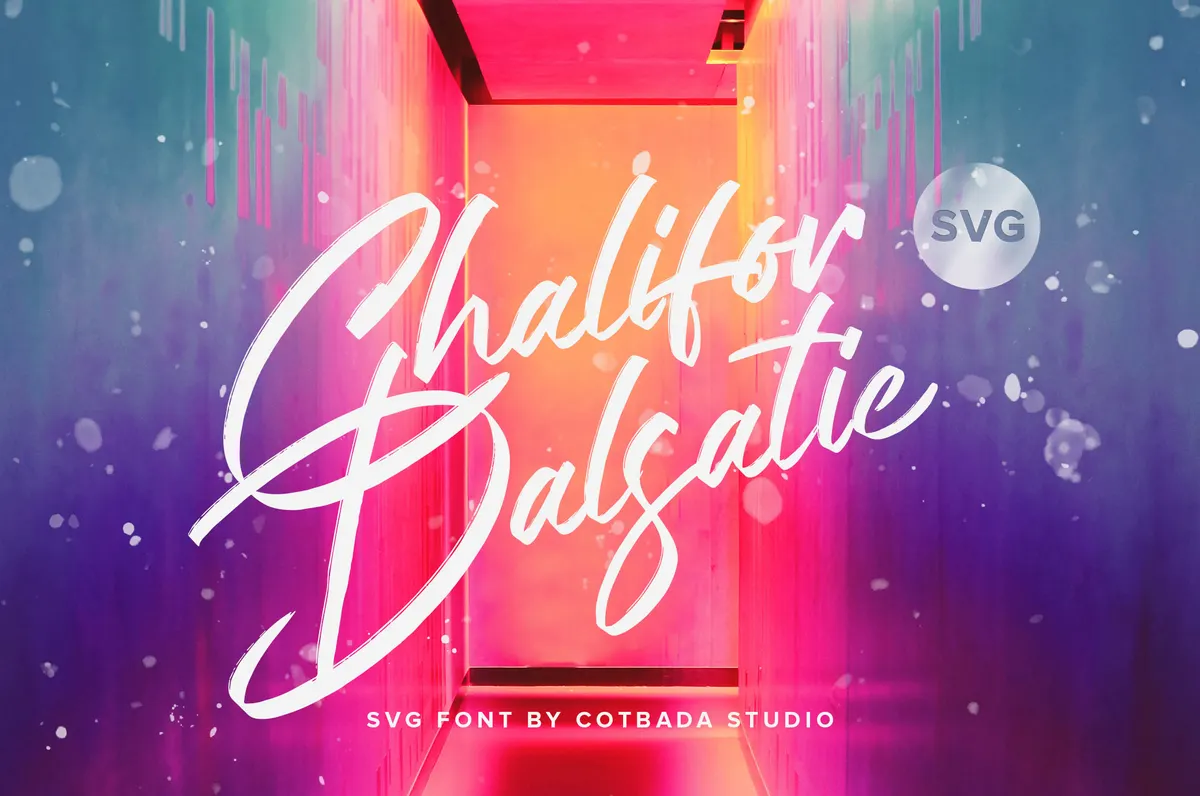
Chalifor Dalsatic SVG Font
Get some space in your toolbox for this spectacular serif font with curved and chalky lines. The classy and sharp handwritten style contrasts with the setting and you cant take your eyes off it.
Take a picture, which lacks a bright message delivery, and turns it into a lively design triumph! A great abundance of unique vector splashes available at your service in this pursuit of an innovative showcase. No doubt this font will look great with your logos, labels, packaging design, blog headlines, posters (we can continue forever). Amaze everyone with the results you get!